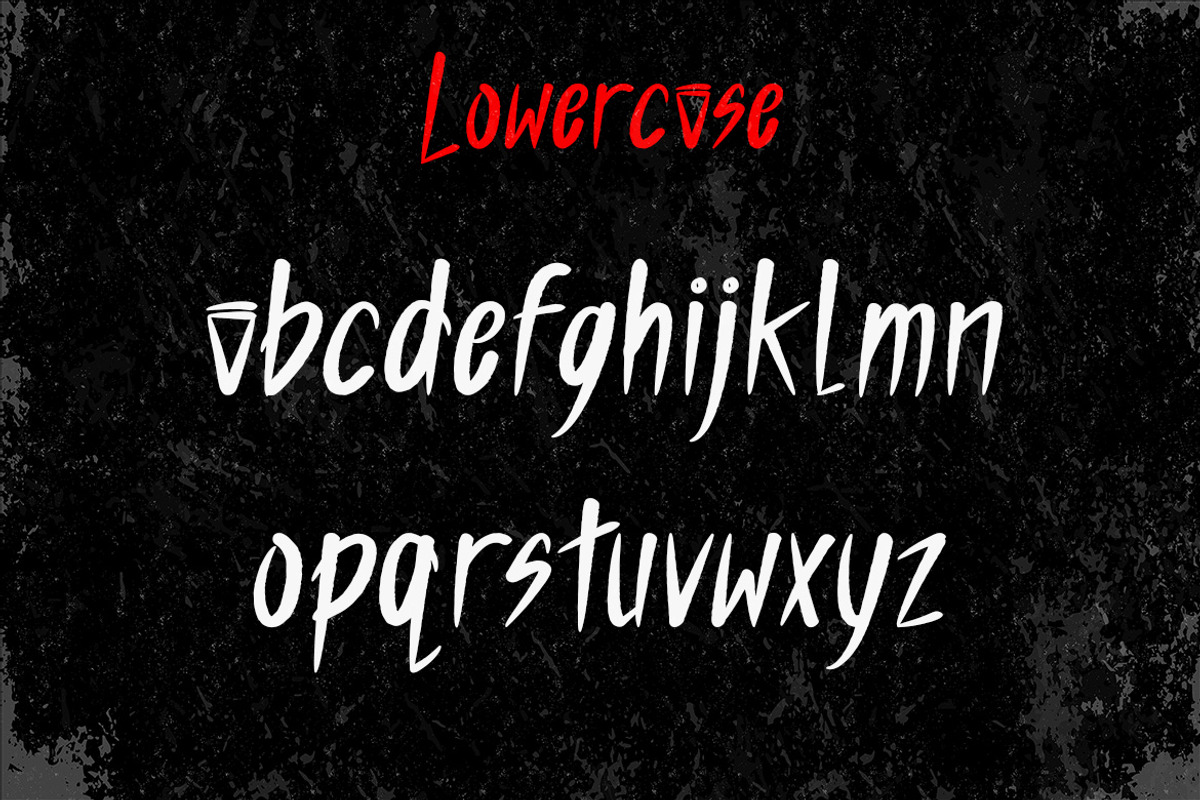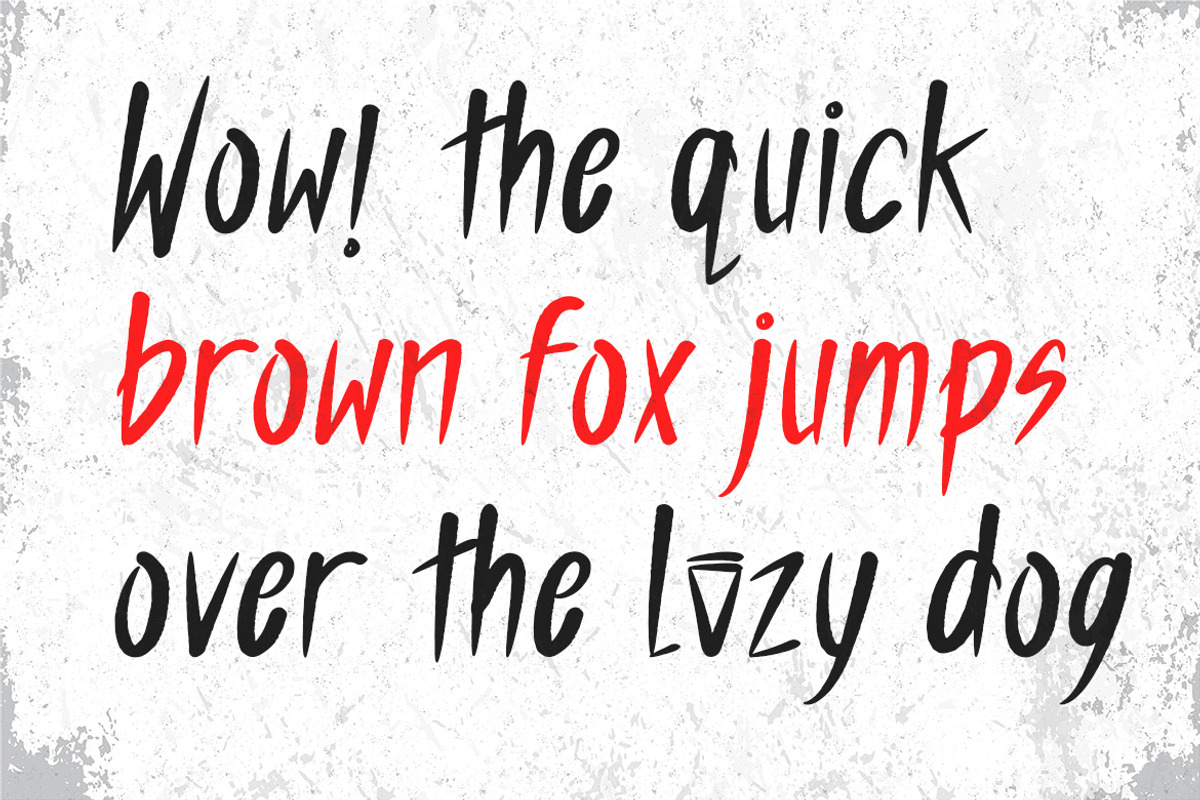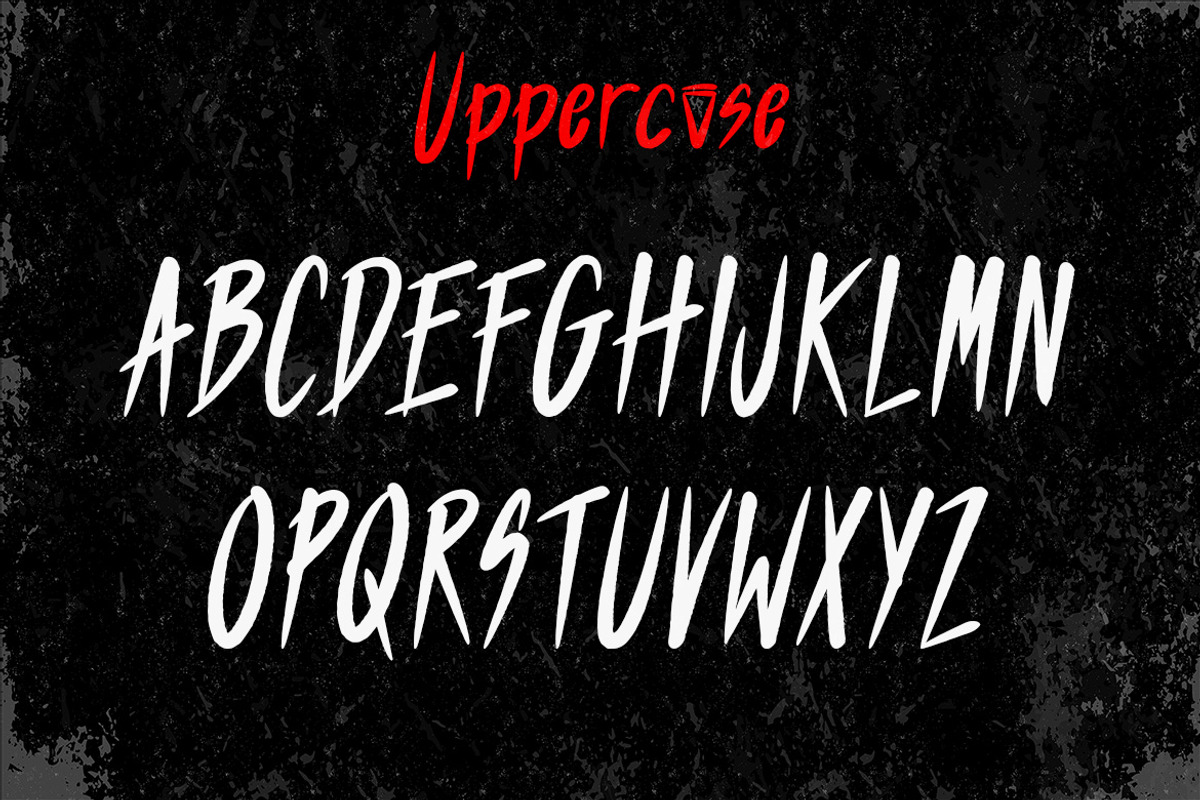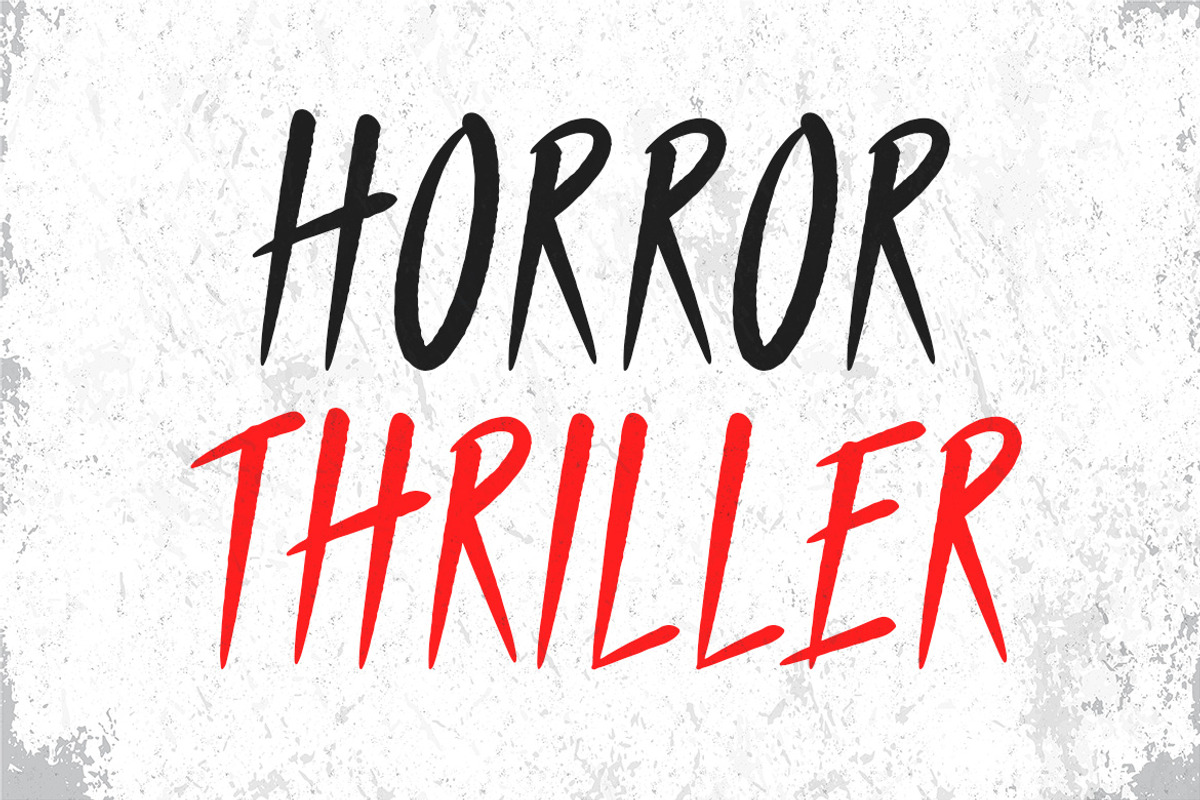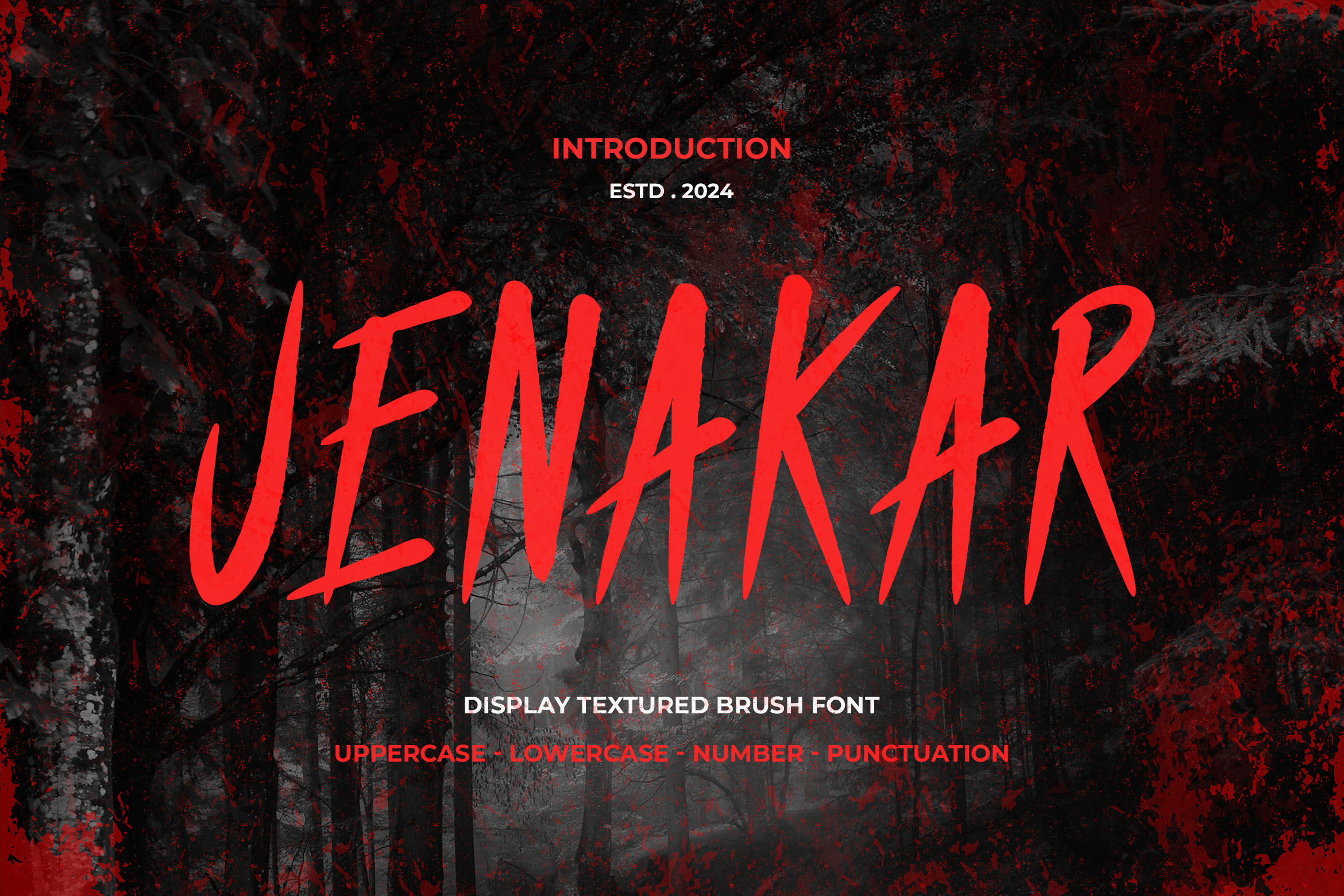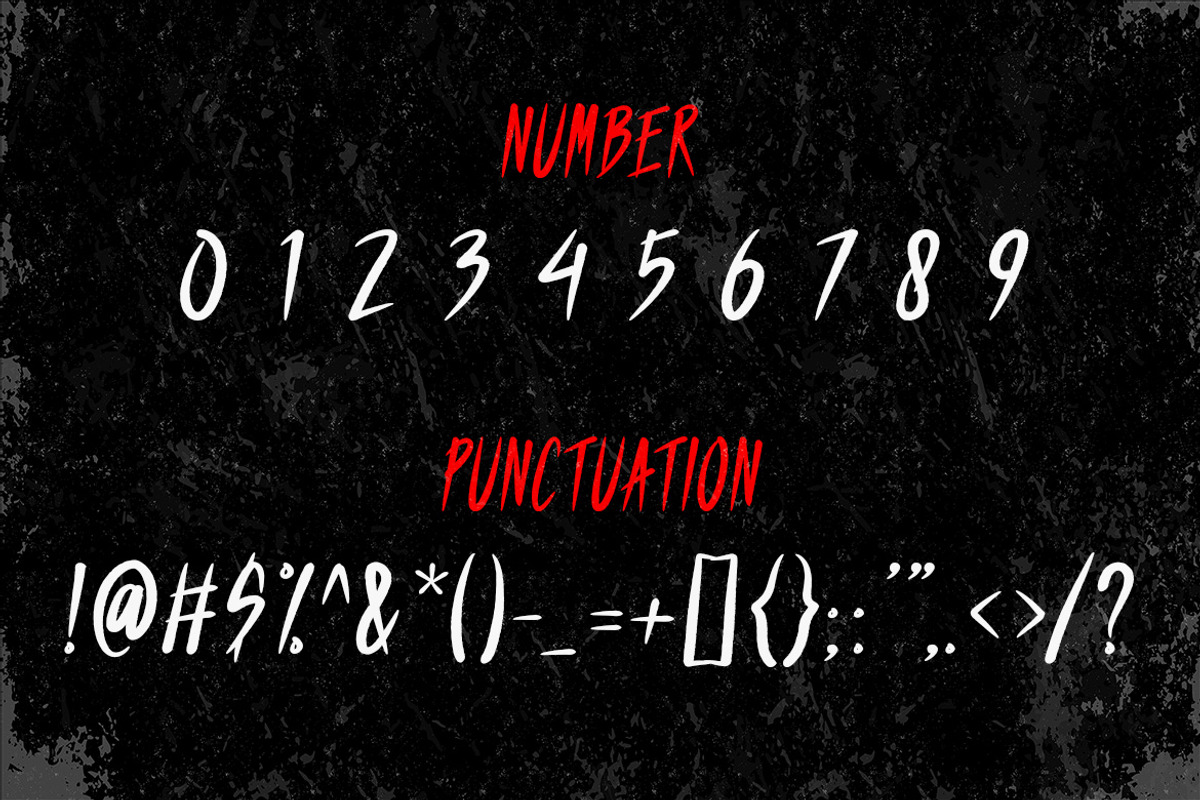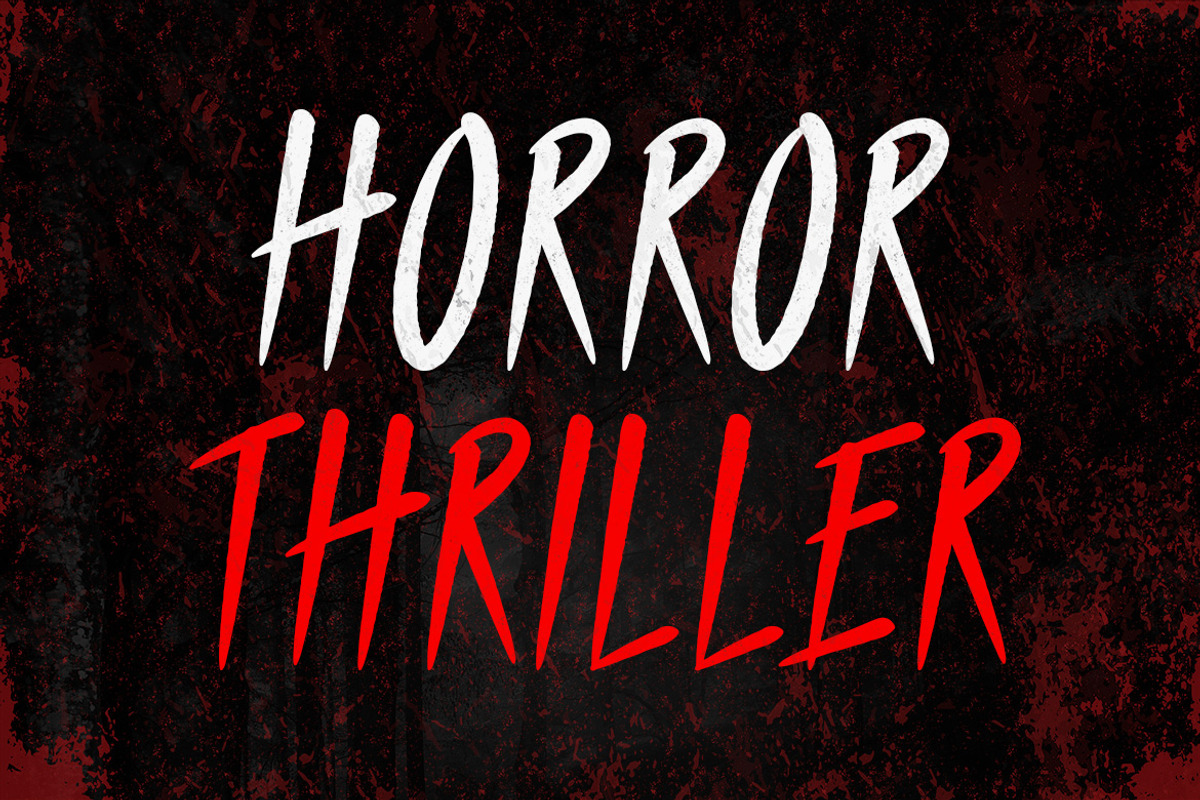
JENAKAR - Textured Brush Font
JENAKAR a unique display typeface perfect for titles, large text, branding, logotypes & graphic design purposes such as posters, pamphlets, and advertisements. This letter font can be a great choice for creating amazing logos, promotional content, and marketing presentations that can bring uniqueness and freshness at its best.